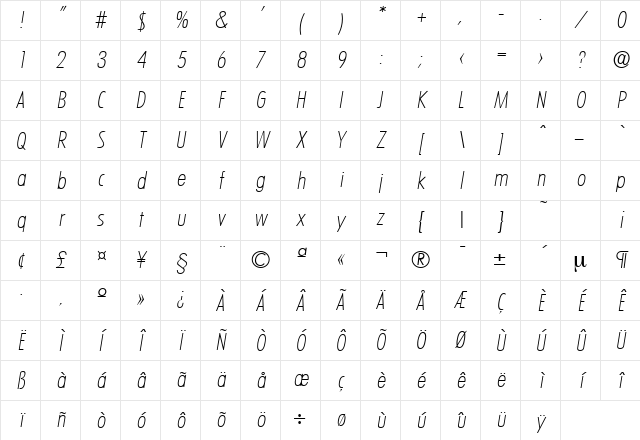
LimerickCond-Serial-ExtraLight RegularItalic
Style: RegularItalic
LimerickCond-Serial-ExtraLight Family
Complete LimerickCond-Serial-ExtraLight RegularItalic glyph index. Displaying only characters natively supported by LimerickCond-Serial-ExtraLight RegularItalic font.
Design Context for LimerickCond-Serial-ExtraLight
LimerickCond-Serial-ExtraLight is a composed and adaptable typeface that performs quietly and consistently across a wide range of design contexts. The slanted form adds forward momentum and visual energy. Its slender proportions lend an understated elegance to any composition. Its narrow stance lets it pack a punch even in space-constrained designs.
Pro Tip: Use LimerickCond-Serial-ExtraLight for emphasis, pull quotes, and subheadings where its slanted energy can add rhythm to the layout.